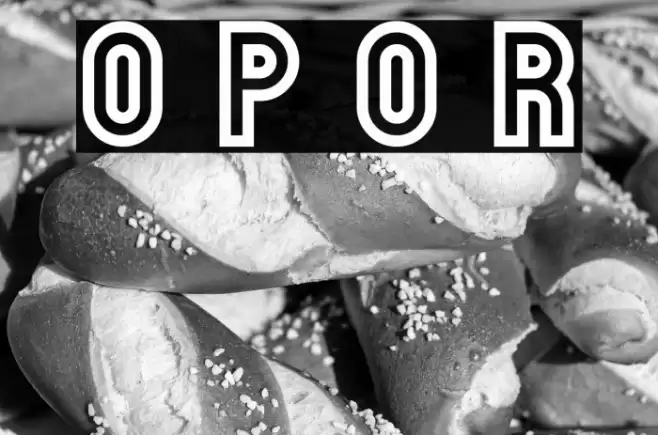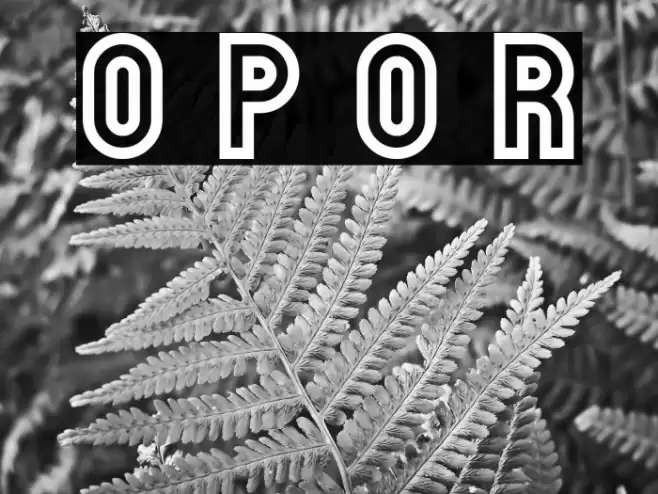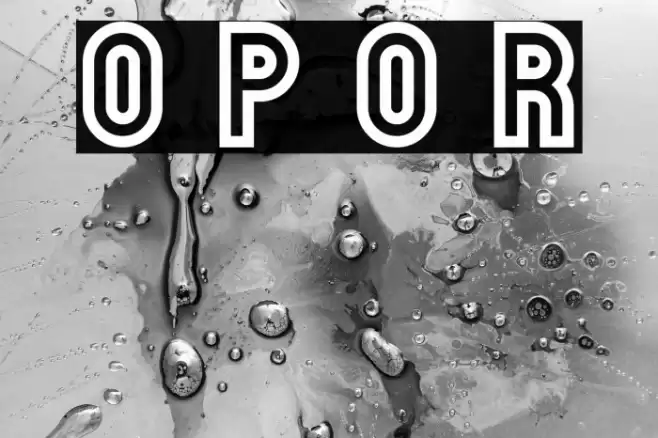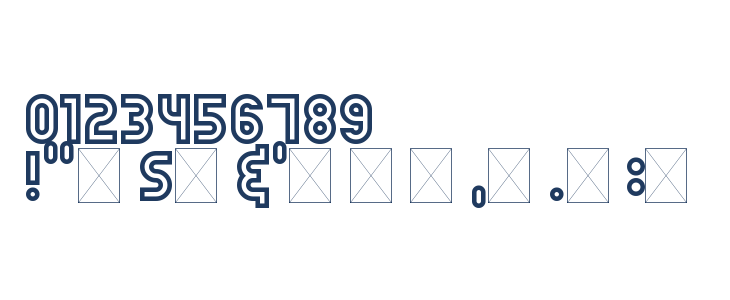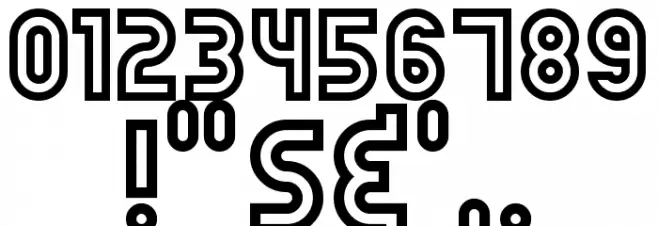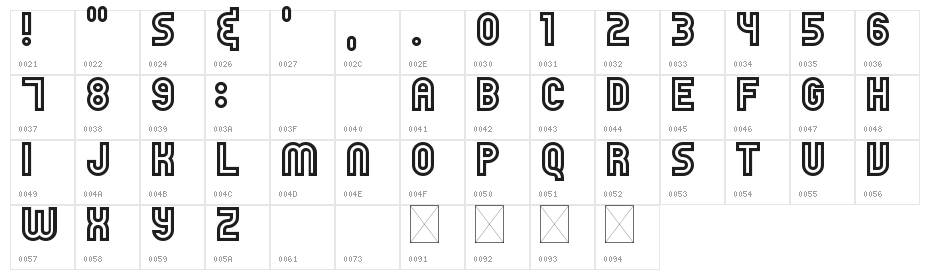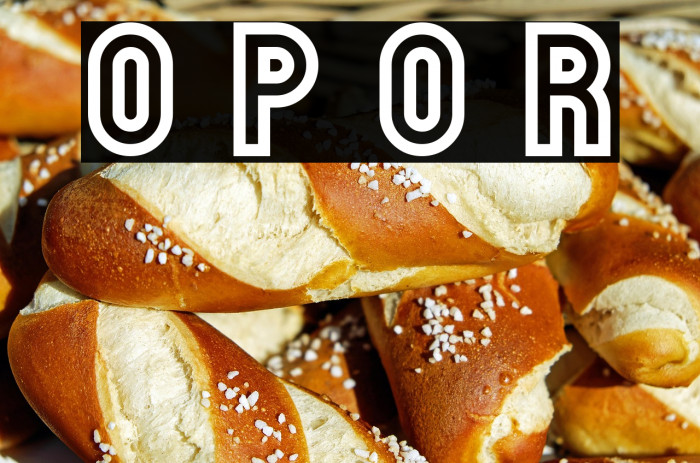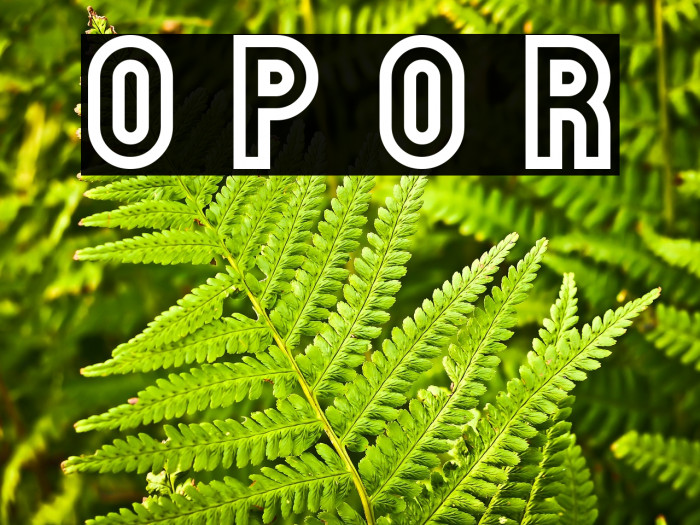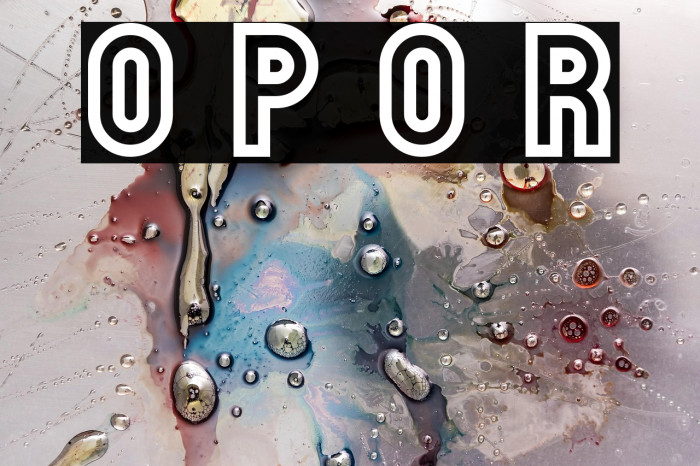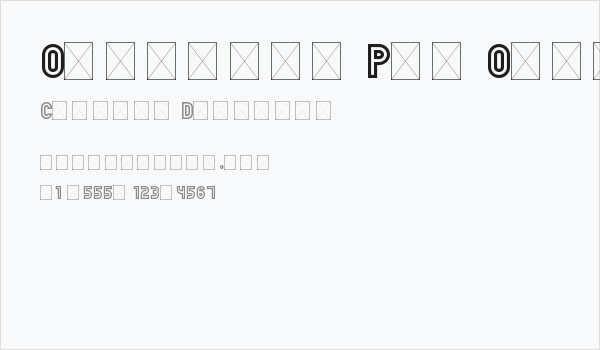
Outfield Pro Outline Regular Font
Outfield Pro Outline Regular Description
This font features a bold, outlined style that gives it a striking and modern appearance. The uppercase letters are uniform in height, with a geometric and structured design that emphasizes clarity and readability. The numbers follow the same bold outline, maintaining consistency throughout the font. The special characters are designed to match the overall aesthetic, making them suitable for a variety of uses. The font's clean lines and open spaces within the characters create a sense of balance and harmony, making it ideal for attention-grabbing headlines and titles.
A bold, outlined font with a modern and geometric style from Regular fonts.
- Proposed Projects: Ideal for posters, logos, headlines, and branding materials where a strong visual impact is desired.